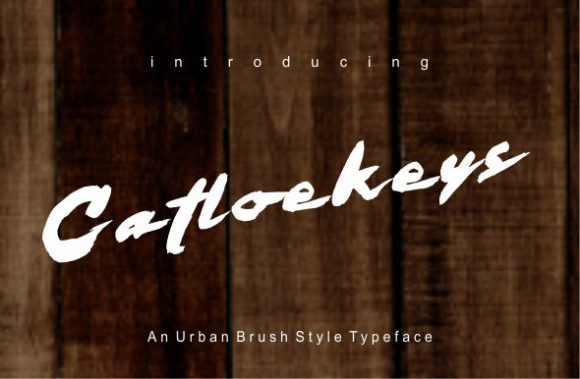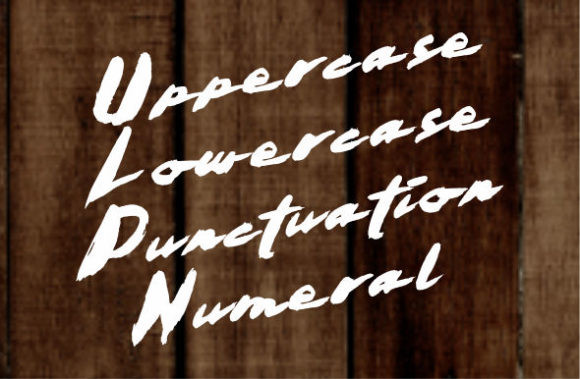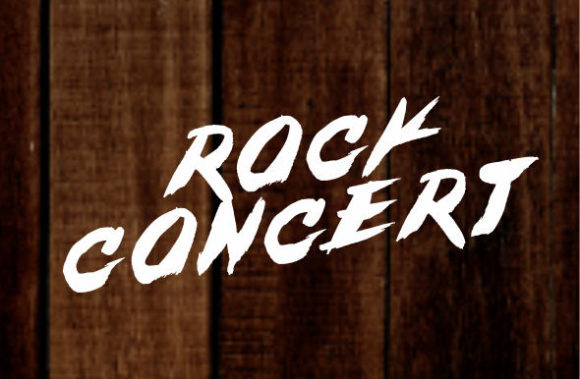
Catloekeys Font
Catloekeys is a bold handwritten font, carefully handcrafted to become a true favorite. Its casual charm makes it appear wonderfully down-to-earth, readable and, ultimately, incredibly versatile. Catloekeys will look outstanding in any context, whether it’s being used on busy backgrounds or as a standalone headline!